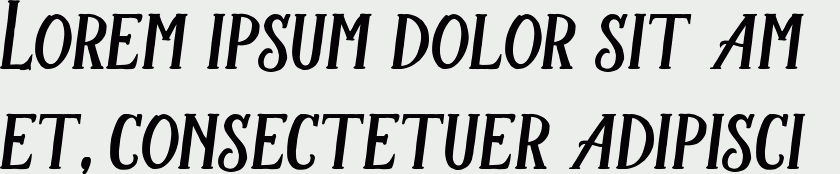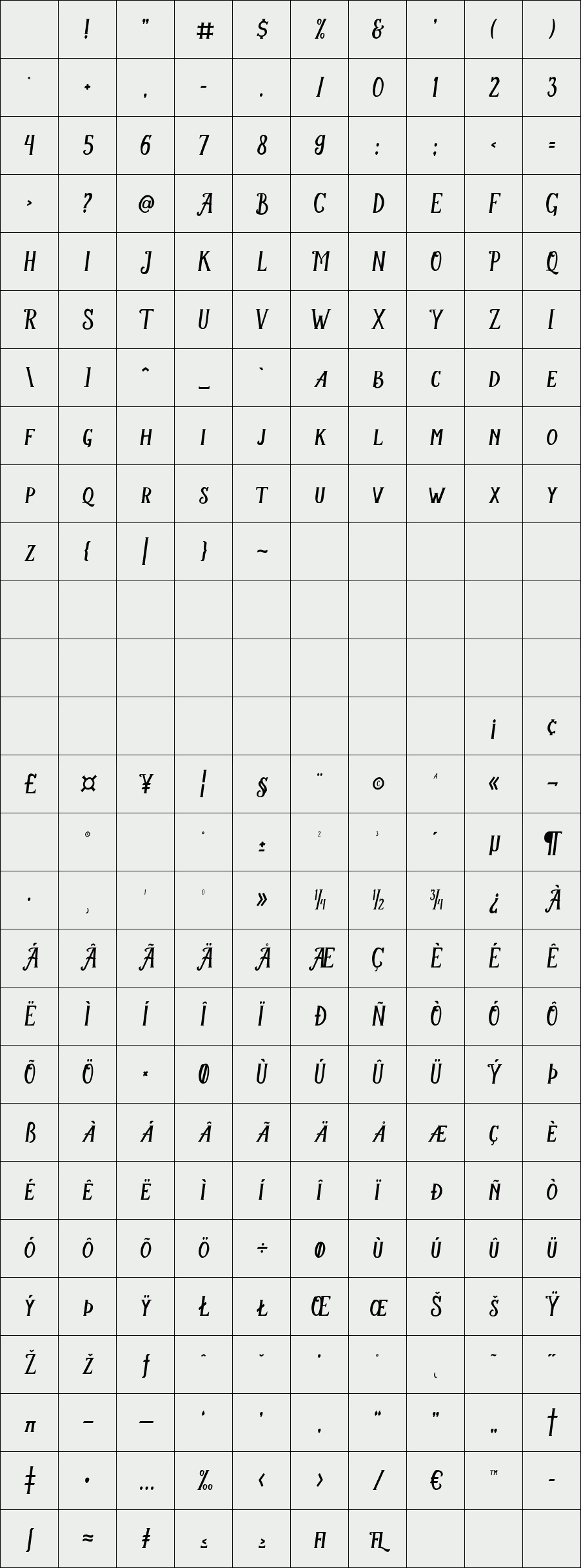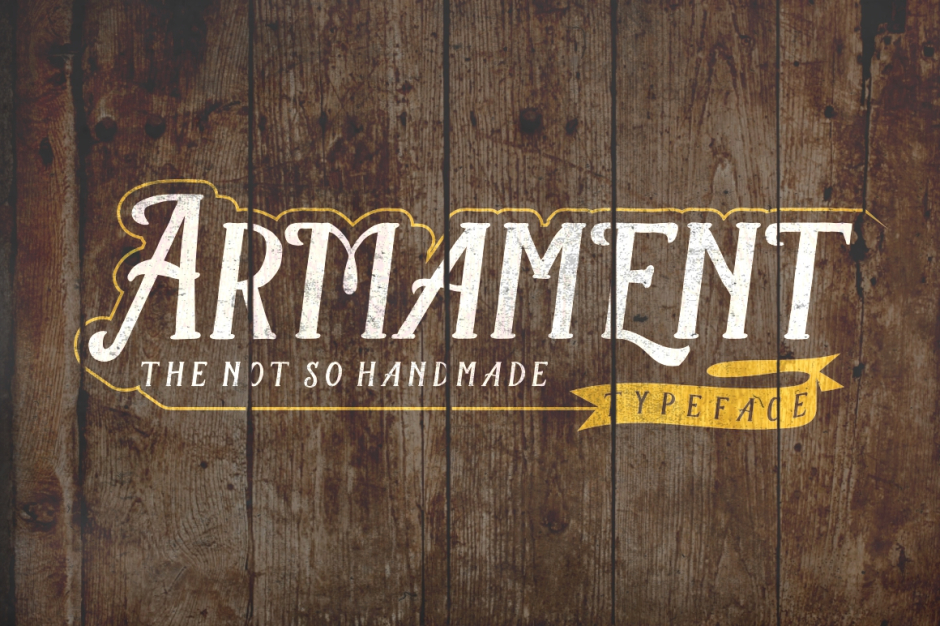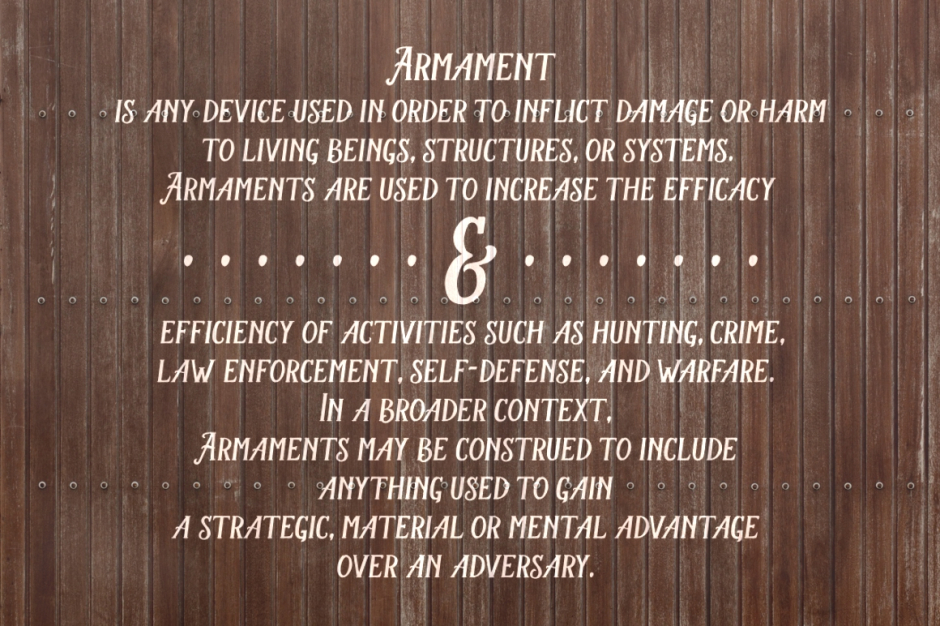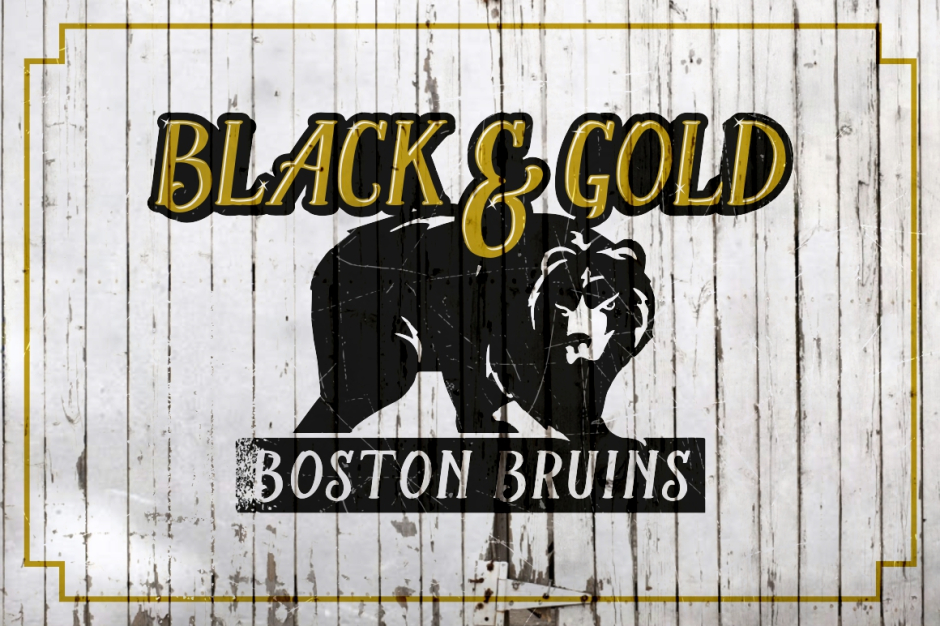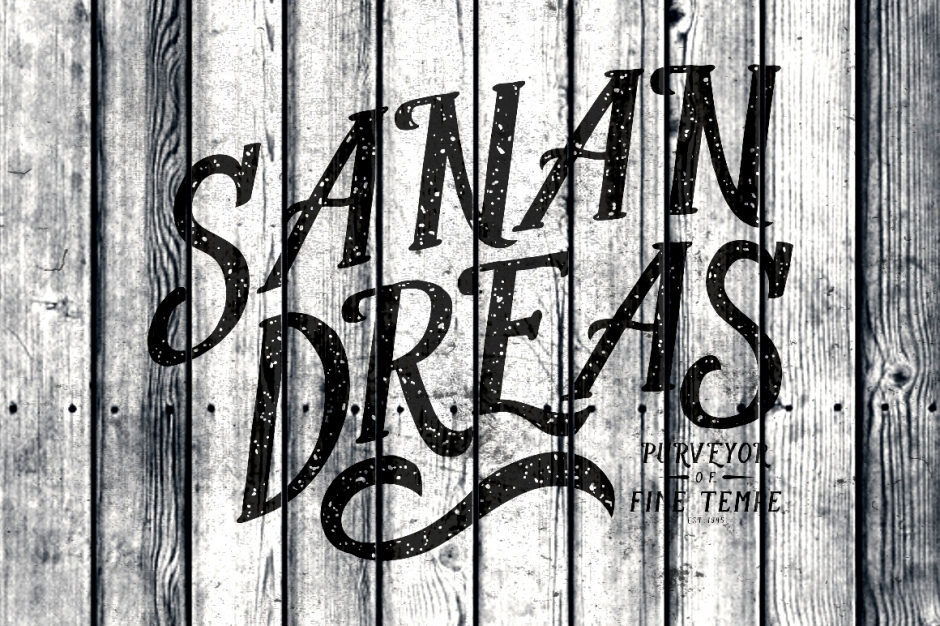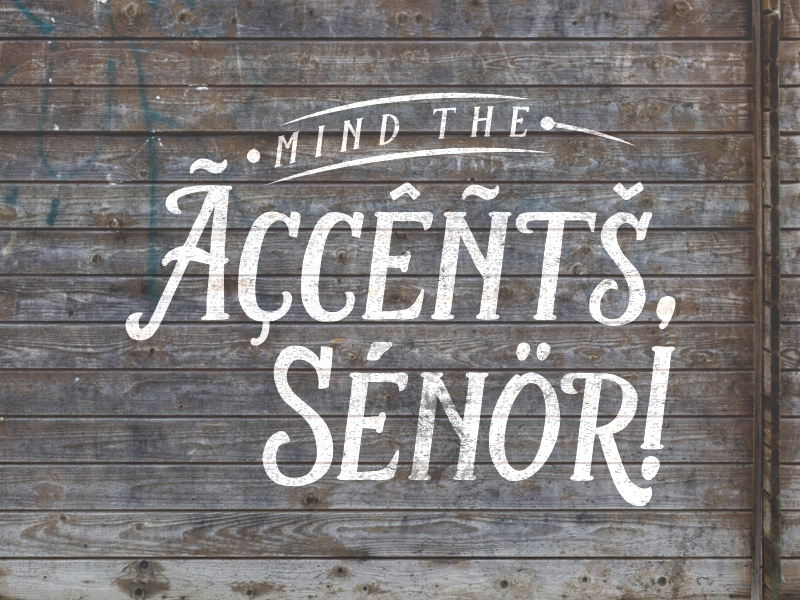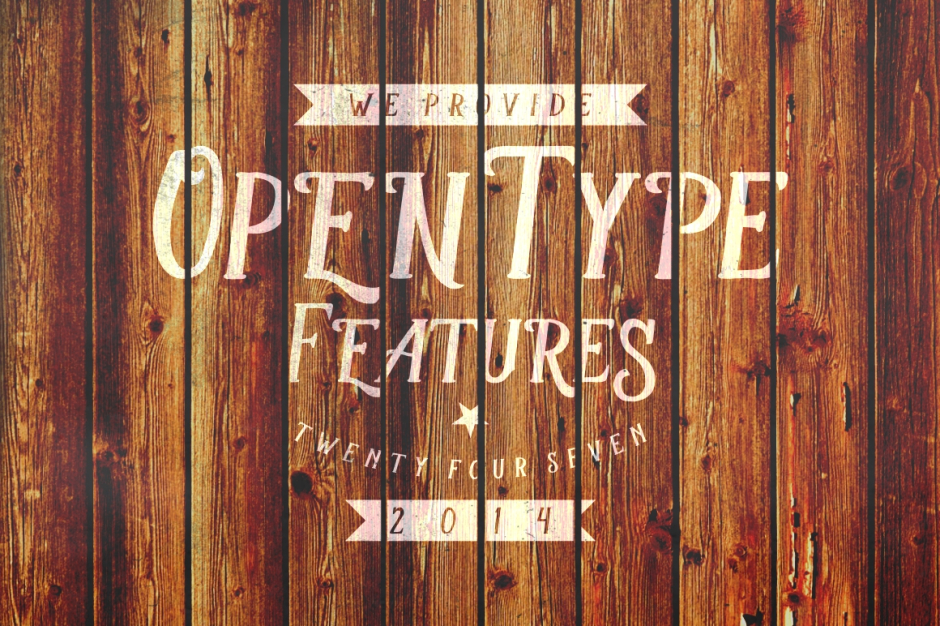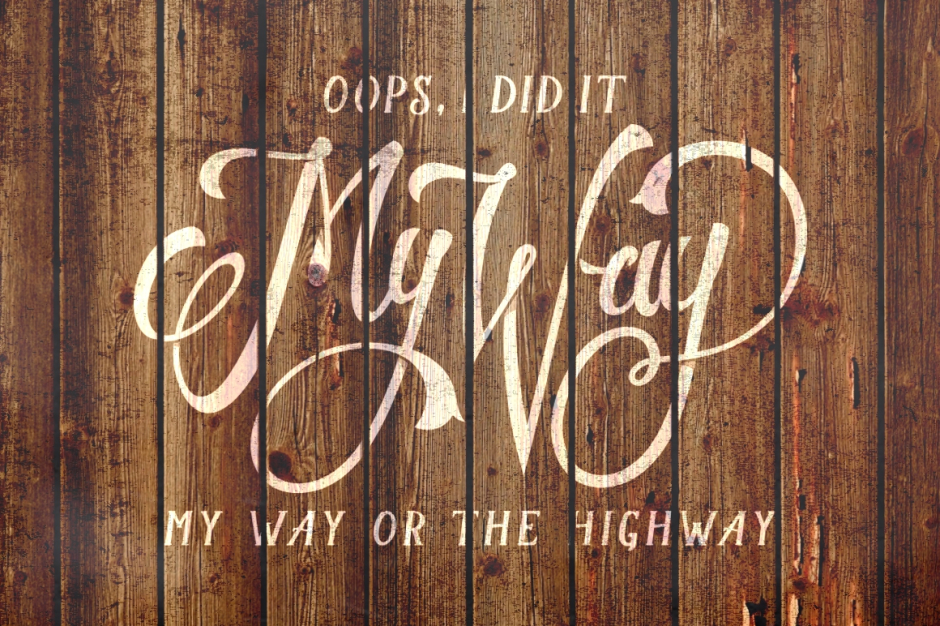
Armament
Armament is a handwriting-traced serif typeface that carefully crafted from the sketch (see the process and details here: http://bit.ly/1ANBfXg ).
The narrow, (kinda) rough and jaggy lines gives you the vintage yet macho feel. This typeface is a great addition to fulfil your need for a quality vintage themed font.
Packed with some OpenType Alternate Characters (OTF only) to let you play and explore more letter variations.
Suits best for almost all vintage themed design, bombastic quotes writing and yada yada.
Features:
-Uppercase
-Lowercase
-Numerals
-Basic punctuations (OpenType Standard encoding)
-Accents
-Alternate characters (OTF only)